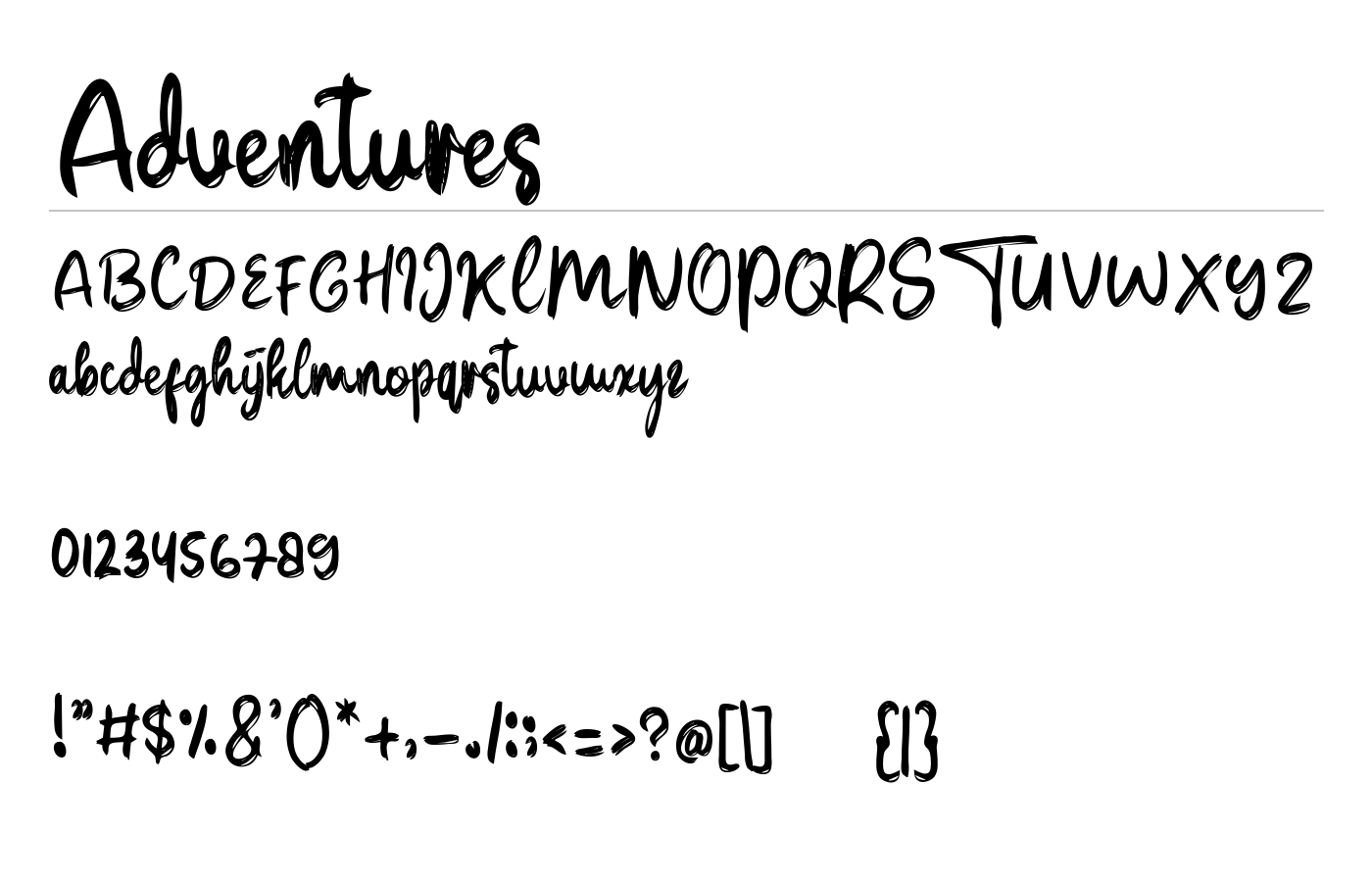
Adventures Font is a lively, hand-drawn script style that combines playful brush strokes with a casual, energetic feel. Its uneven lines and varying stroke thickness give it a personal, adventurous charm perfect for informal designs, making it an excellent choice for creative projects, branding with personality, and eye-catching headlines that want to convey fun and spontaneity.
Adventures Font
About Adventures Font
| Font family | Adventures Font |
| Designer | Letterday Studio |